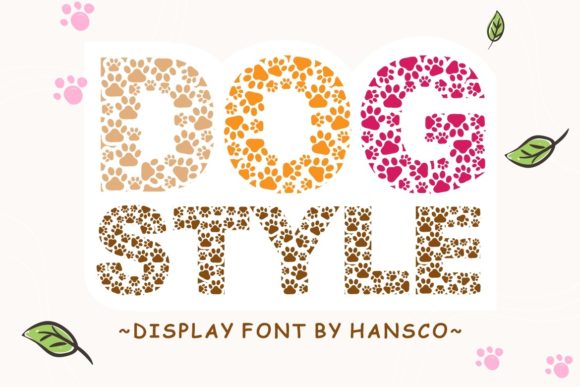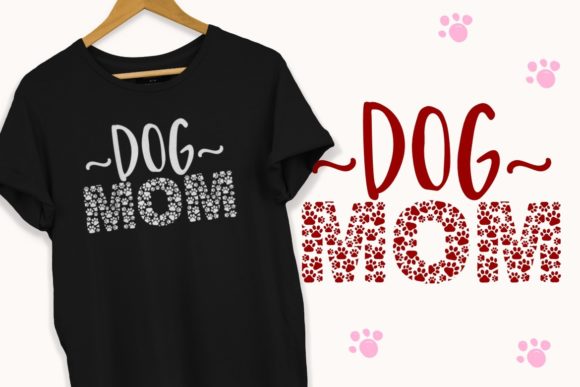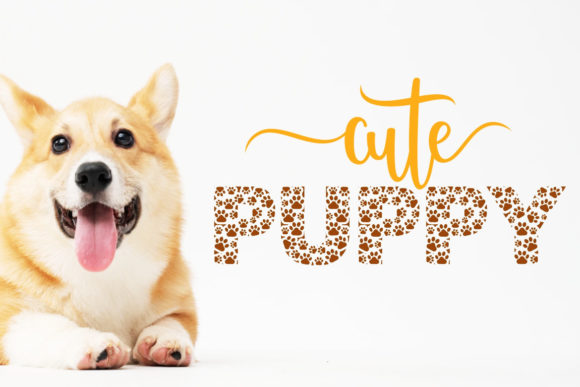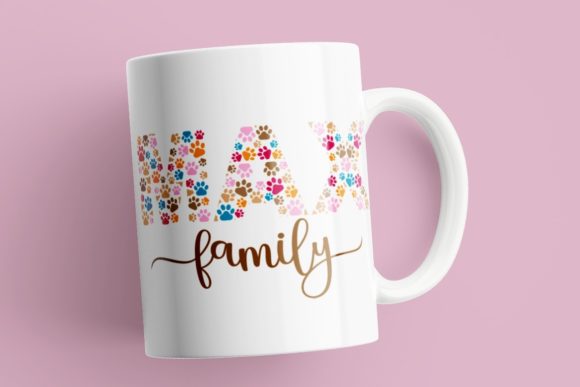
Dog Style Font Font
About the Dog Style Font Font
Add a touch of class to your work with the Dog Style Font Font, a truly exceptional typeface. Dog Style is an amazing and cute decorative font. It embodies playfulness and authenticity and is the perfect choice for any children activity or school project.
Dog Style’s playful nature makes it ideal for children’s book illustrations, branding for toys or playful products, and eye-catching posters for events targeting a young audience. It’s also effective in short headlines or captions where its decorative style adds visual interest. However, its low x-height and decorative elements make it unsuitable for body text or UI elements requiring high readability.
Pairing Dog Style with a clean sans-serif like Open Sans for body copy creates a balanced and approachable design. For a more sophisticated look, consider a classic serif like Garamond to provide contrast and visual weight. Avoid pairing it with other highly decorative fonts, as this will create visual clutter.
The font projects a friendly, approachable, and undeniably whimsical personality, best suited for brands and projects emphasizing fun and lightheartedness.